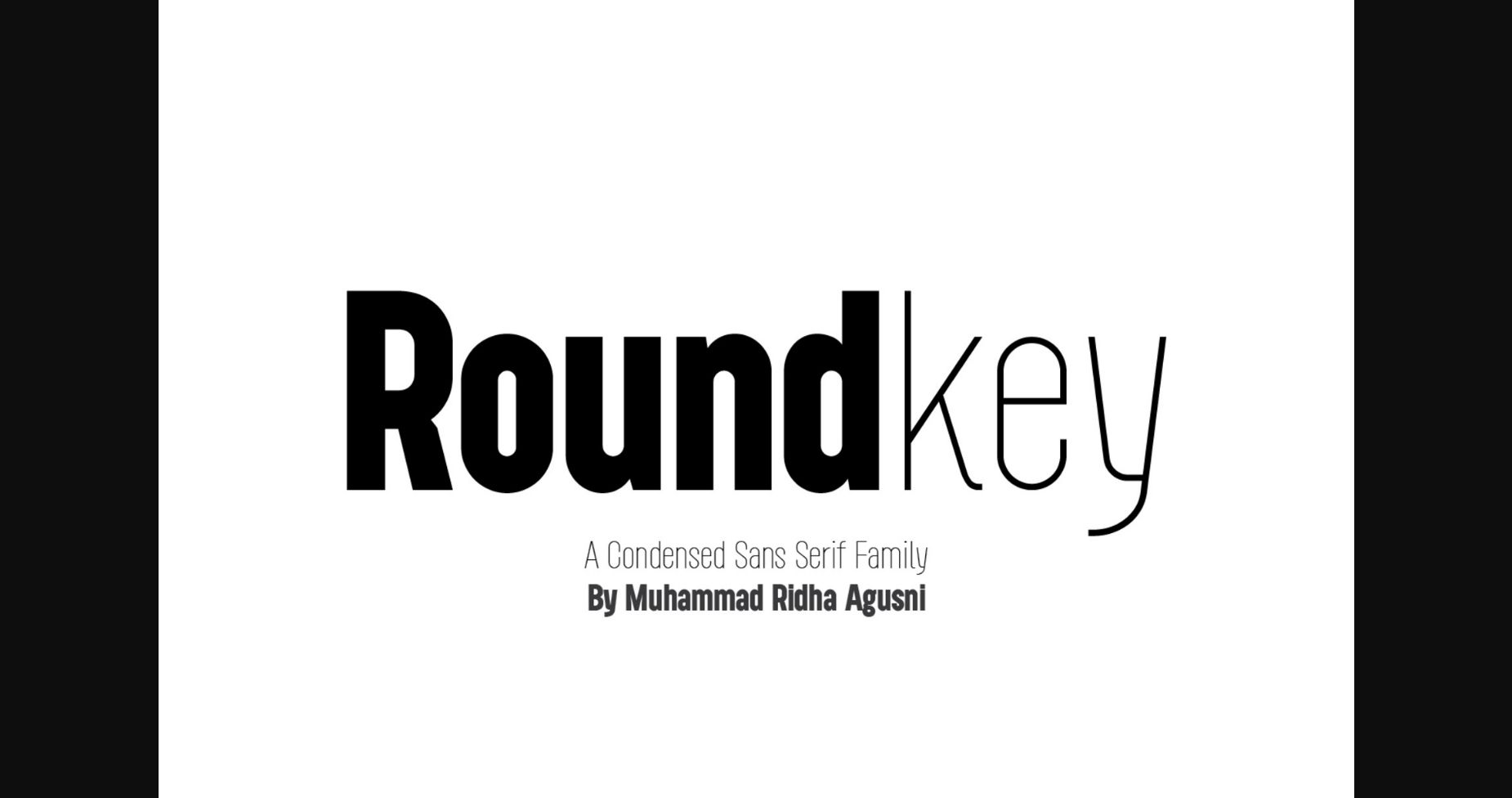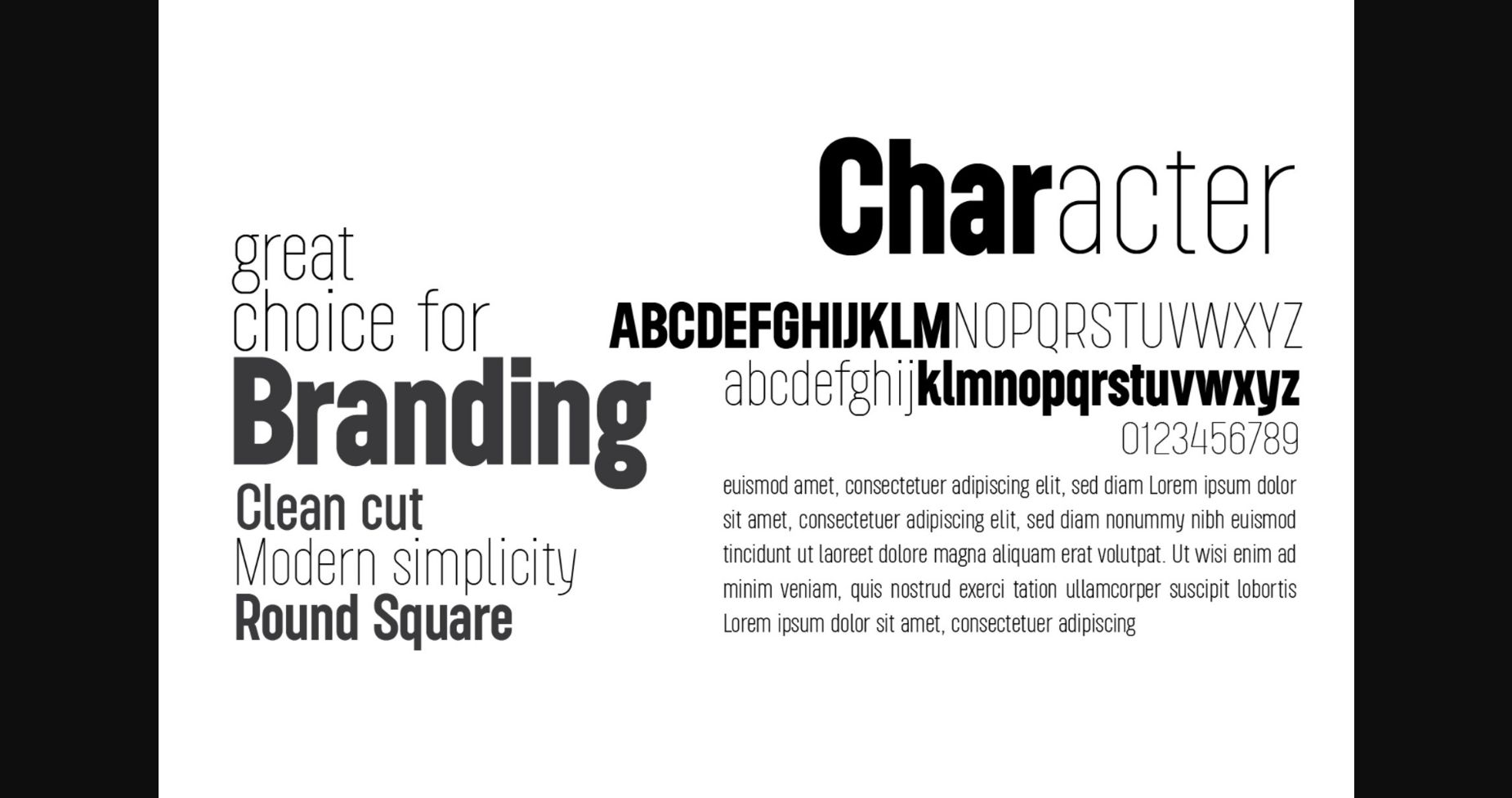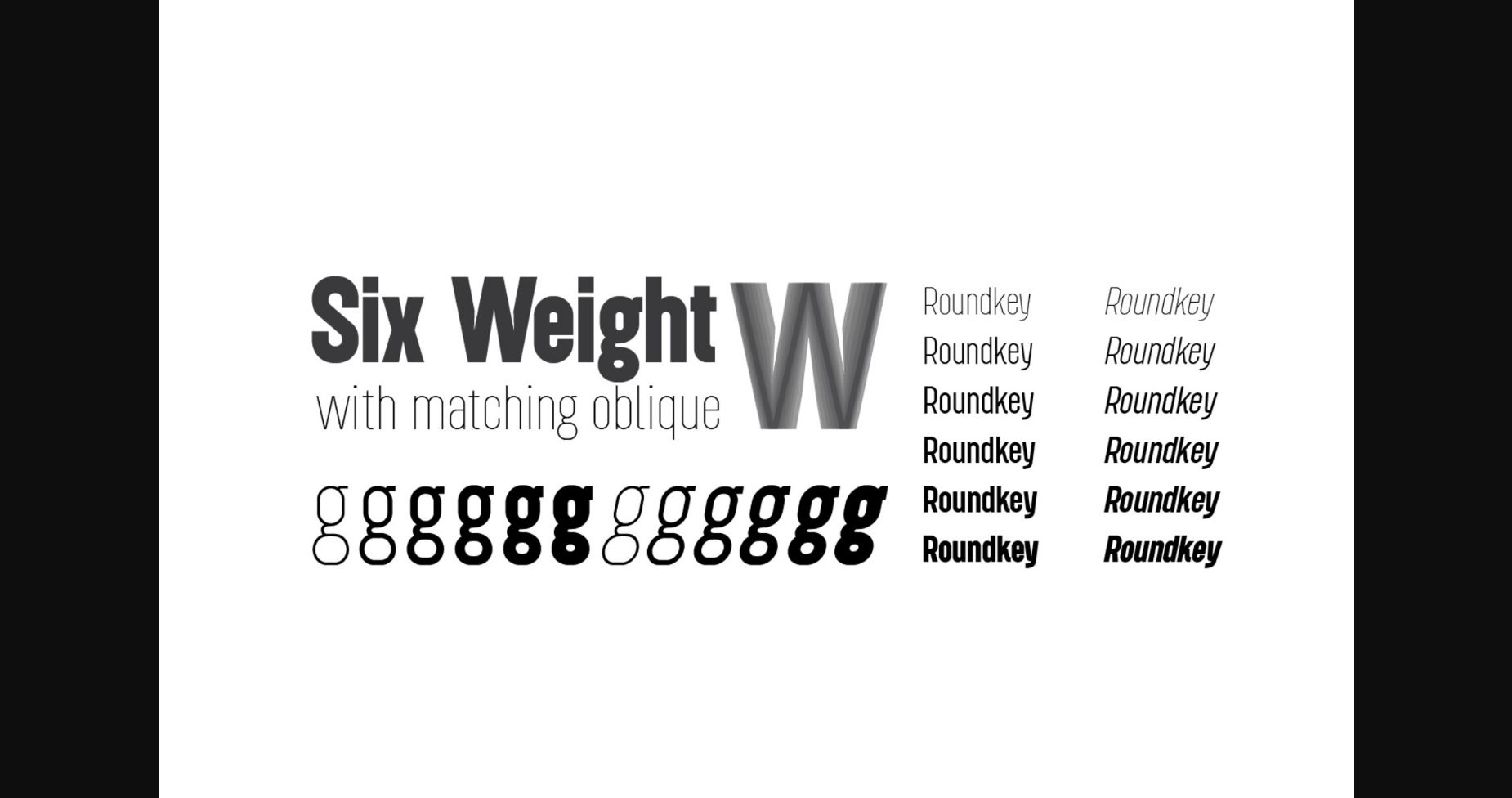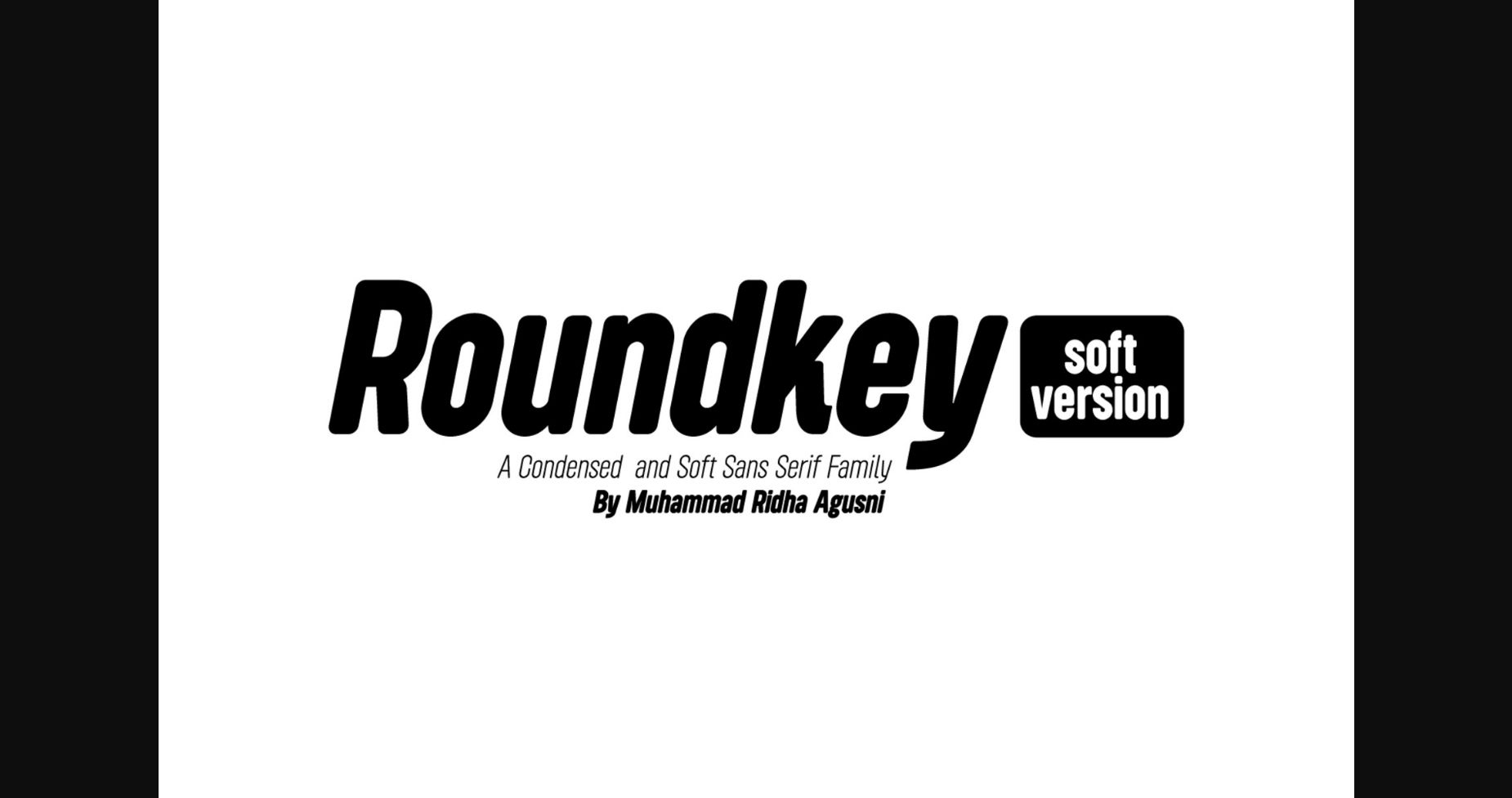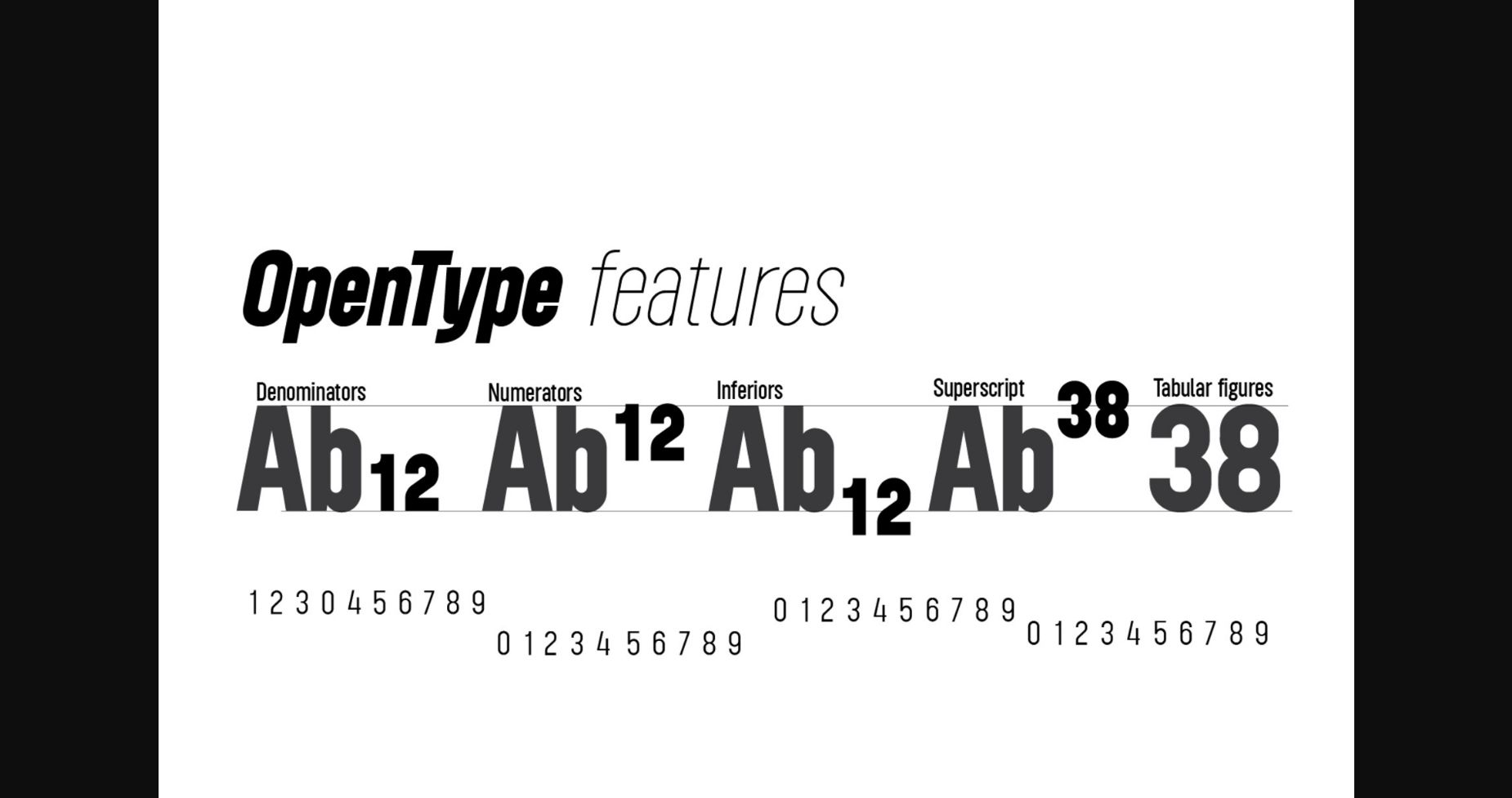
Roundkey Font
About Roundkey Font
Roundkey is a bold and assertive sans serif font. No matter the topic, this font will be an incredibly asset to your fonts’ library, as it has the potential to elevate any creation.